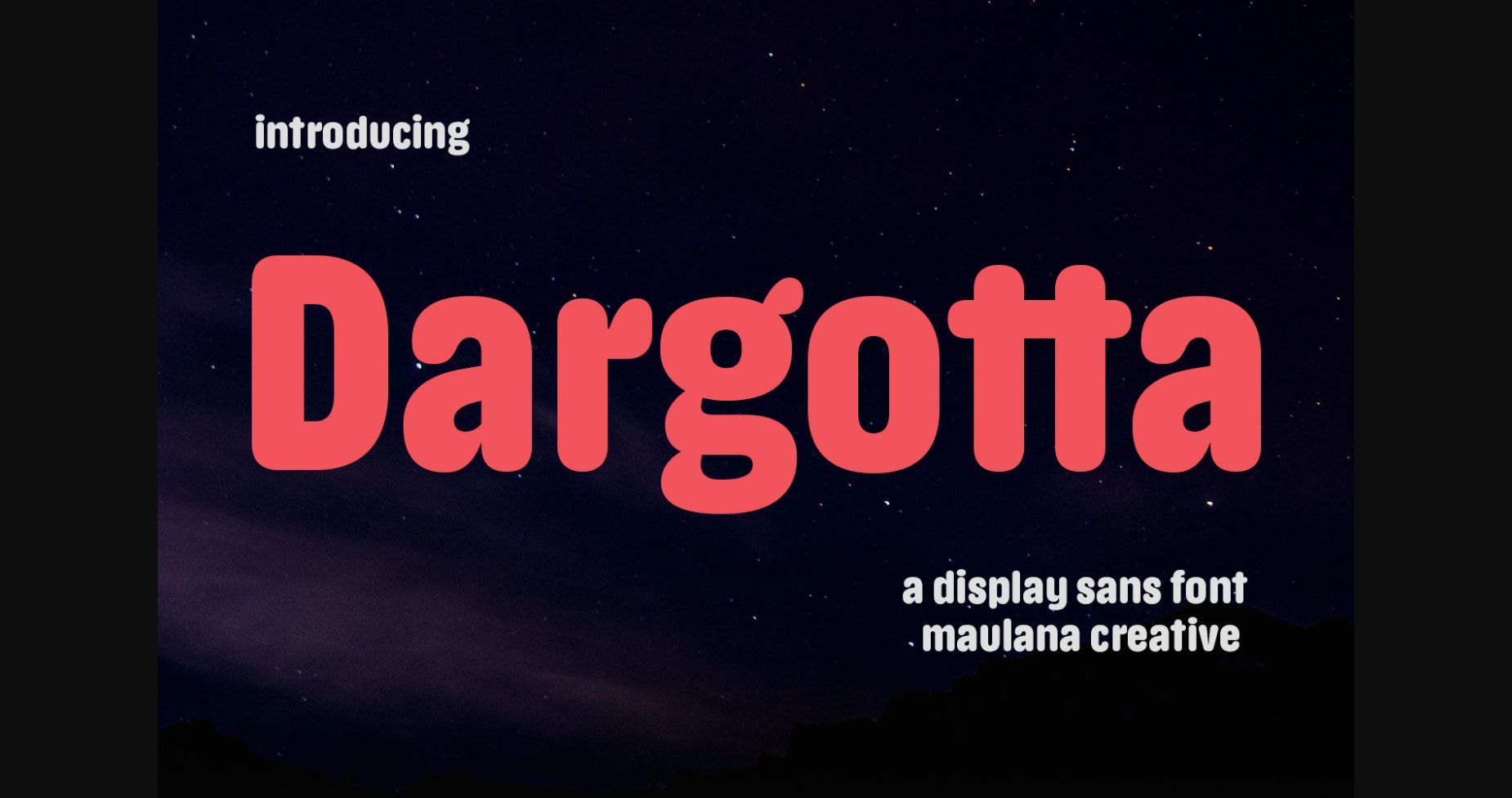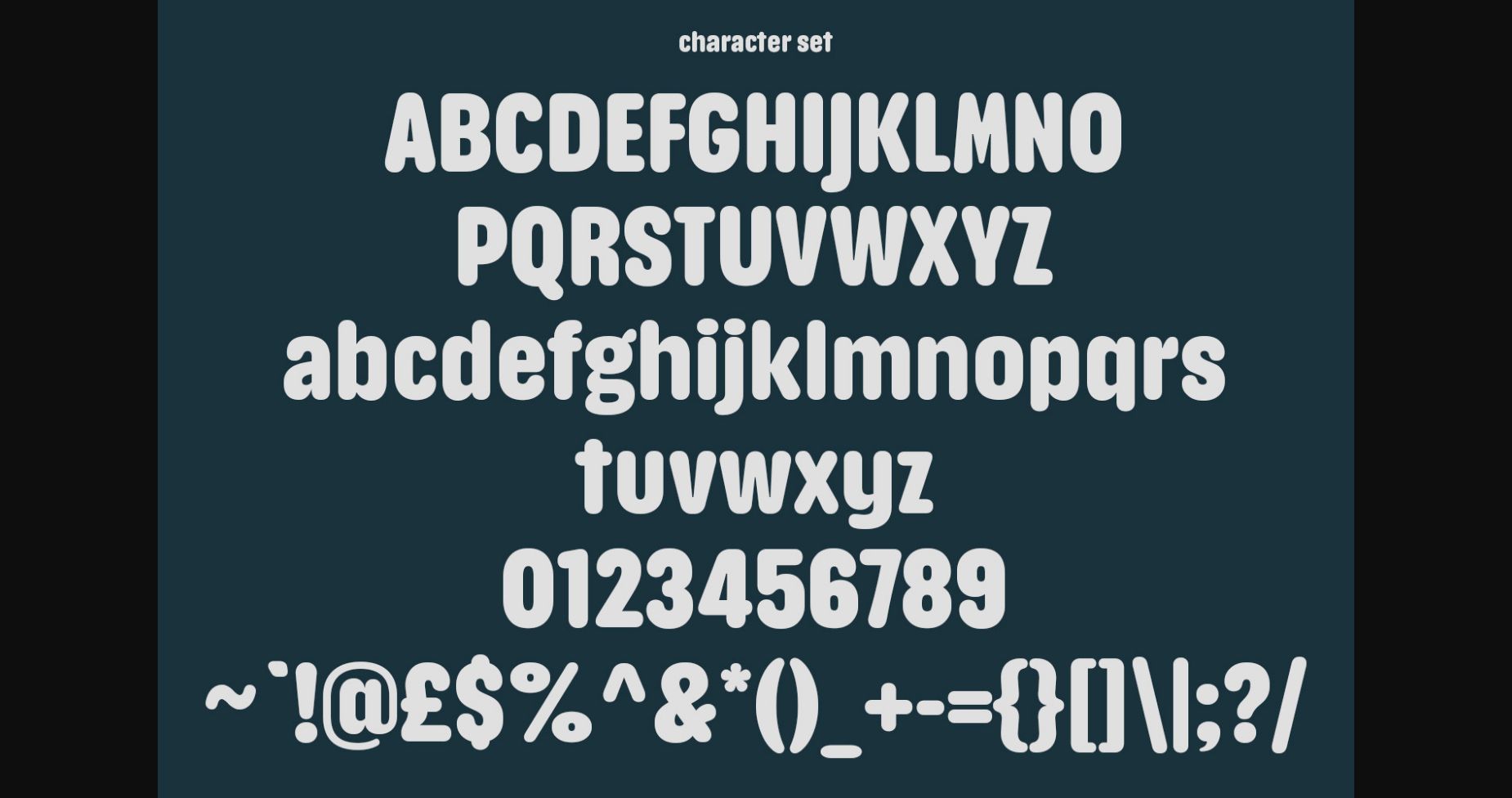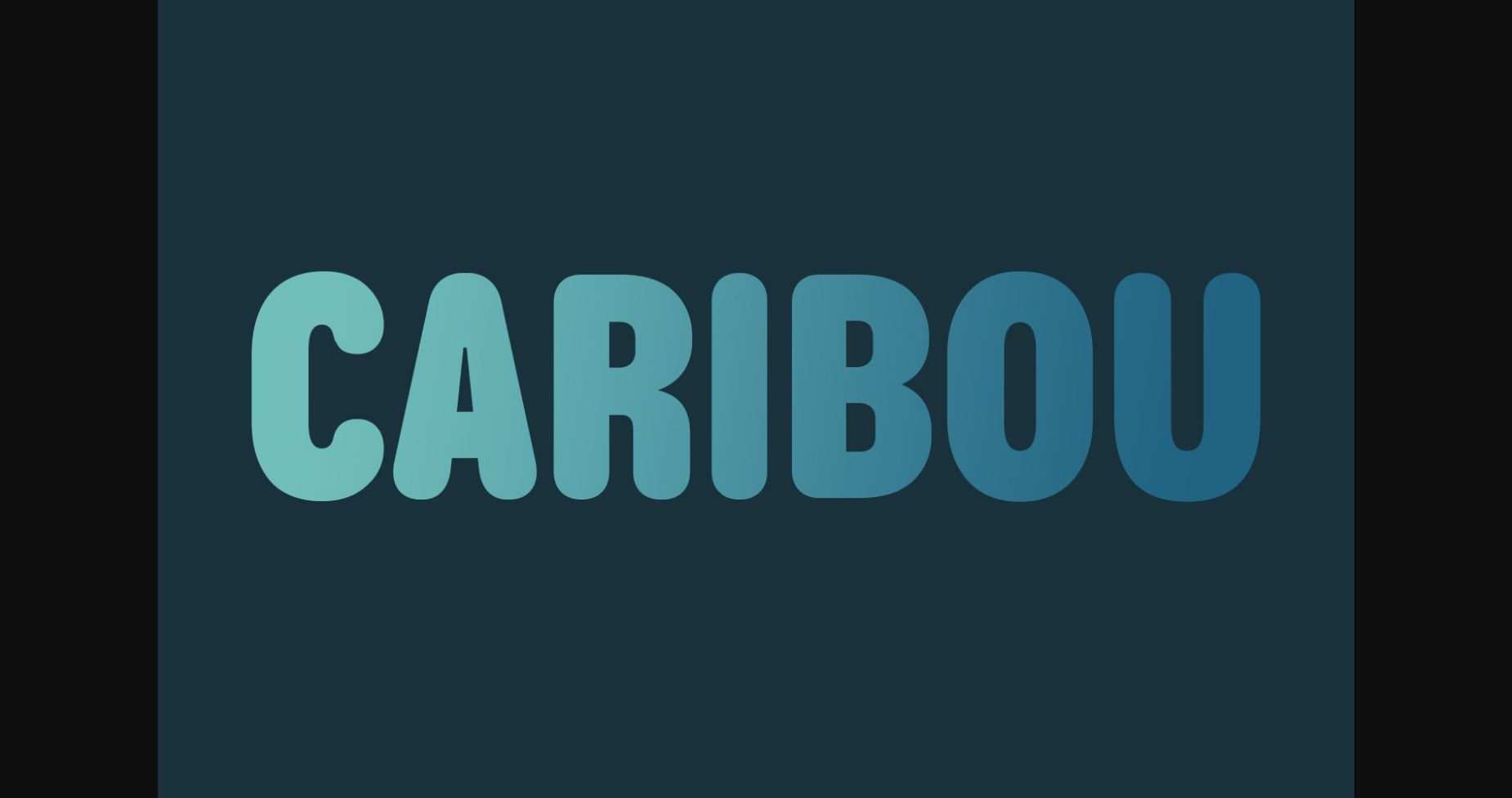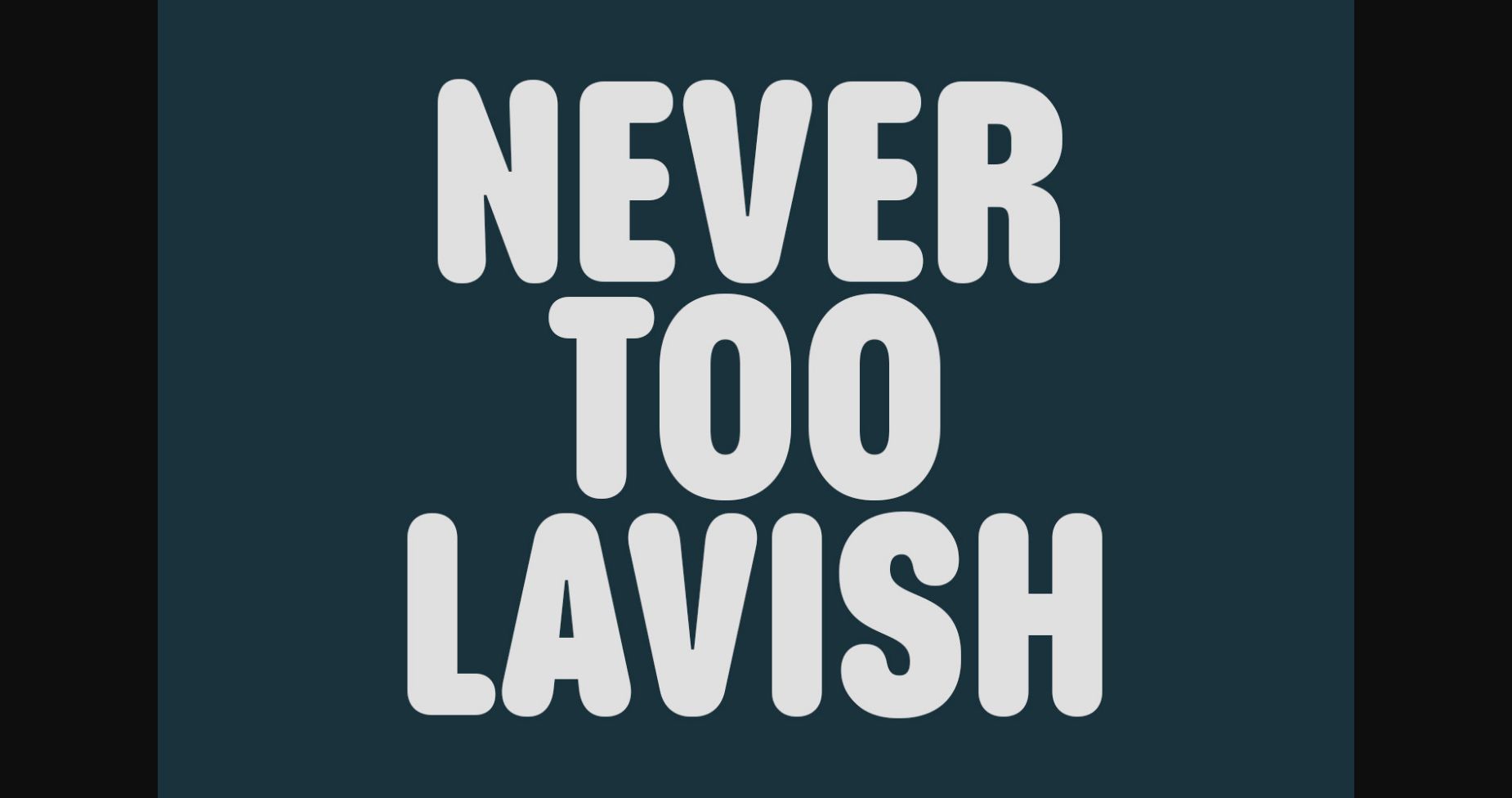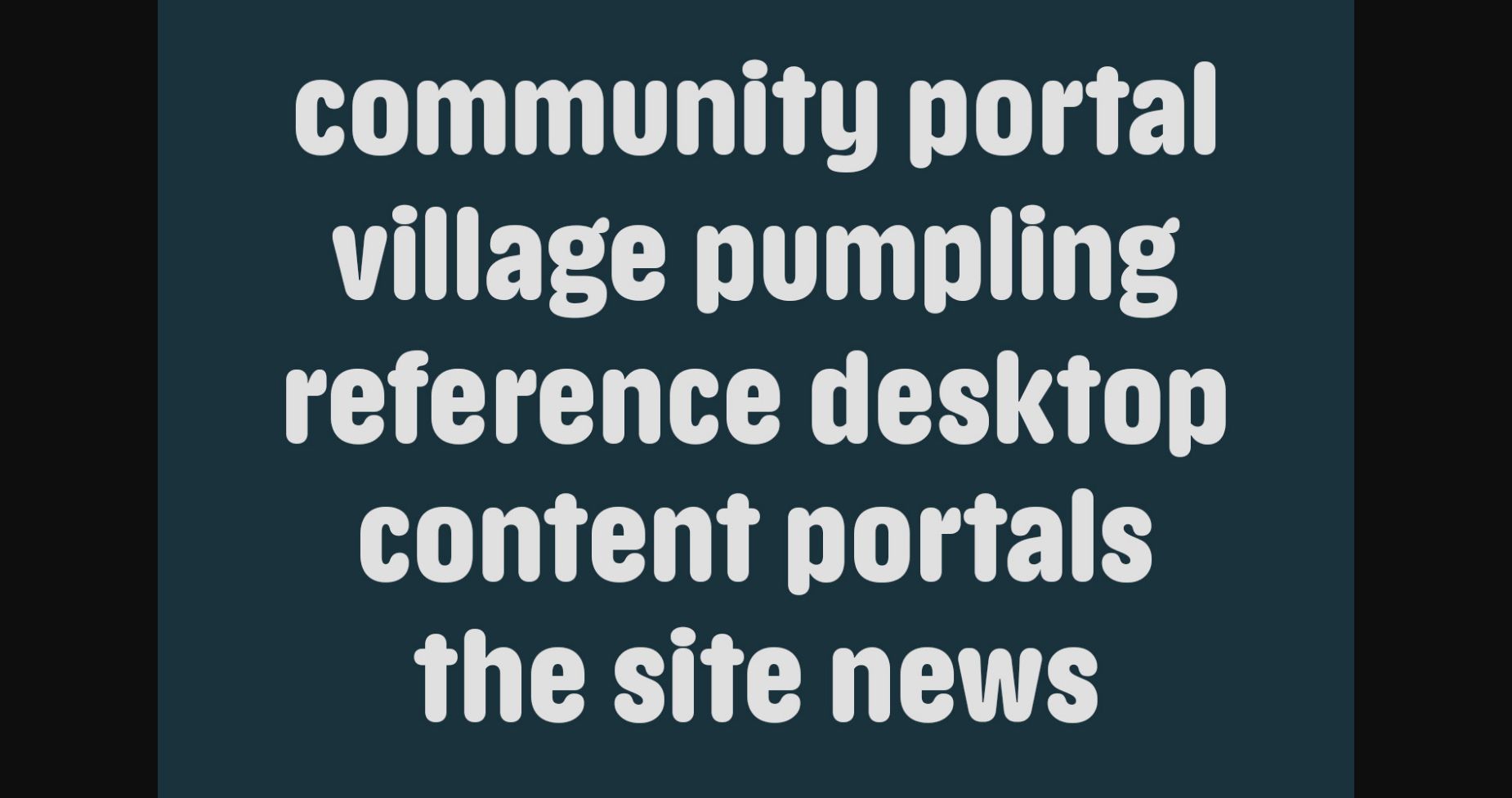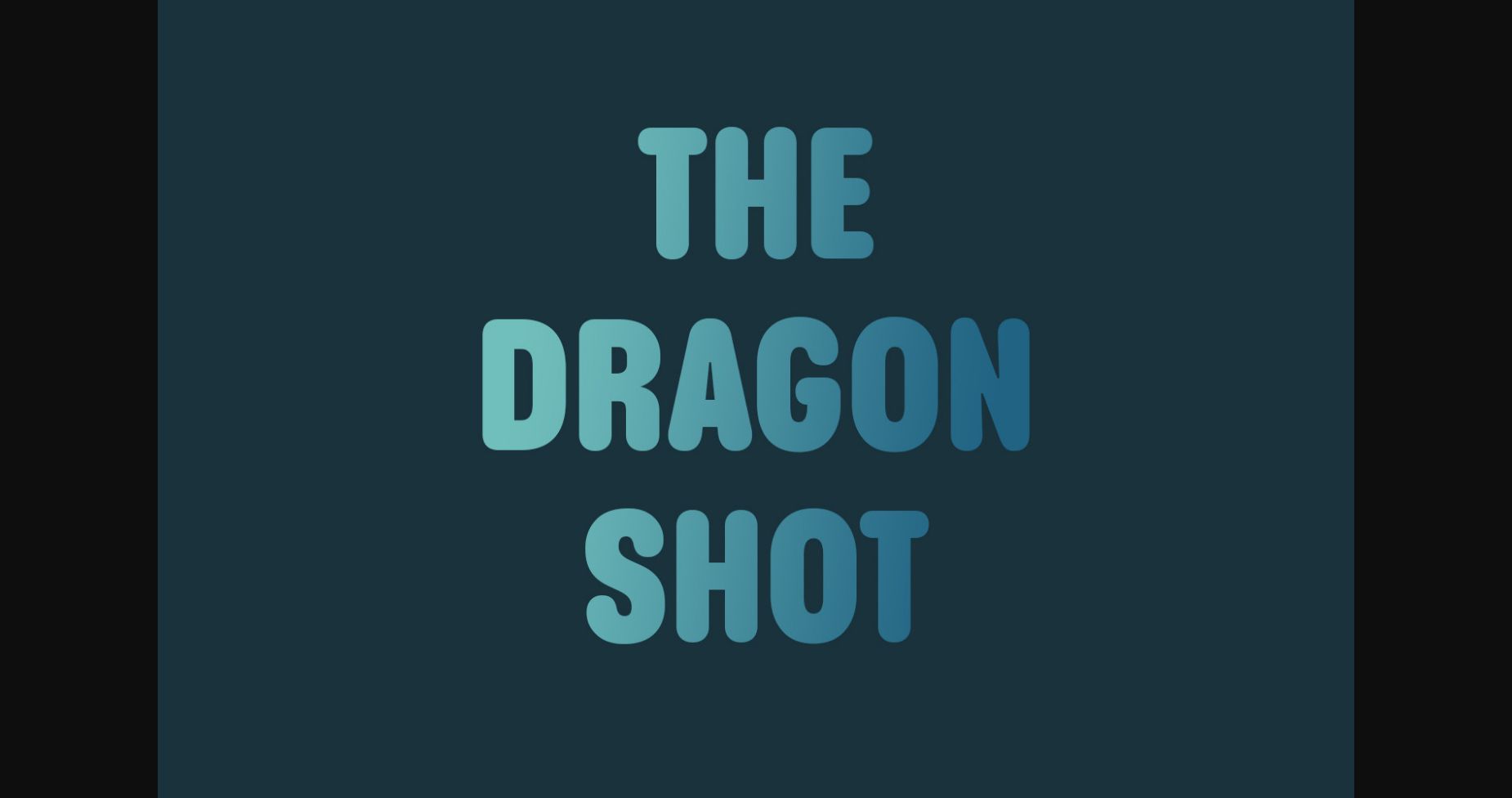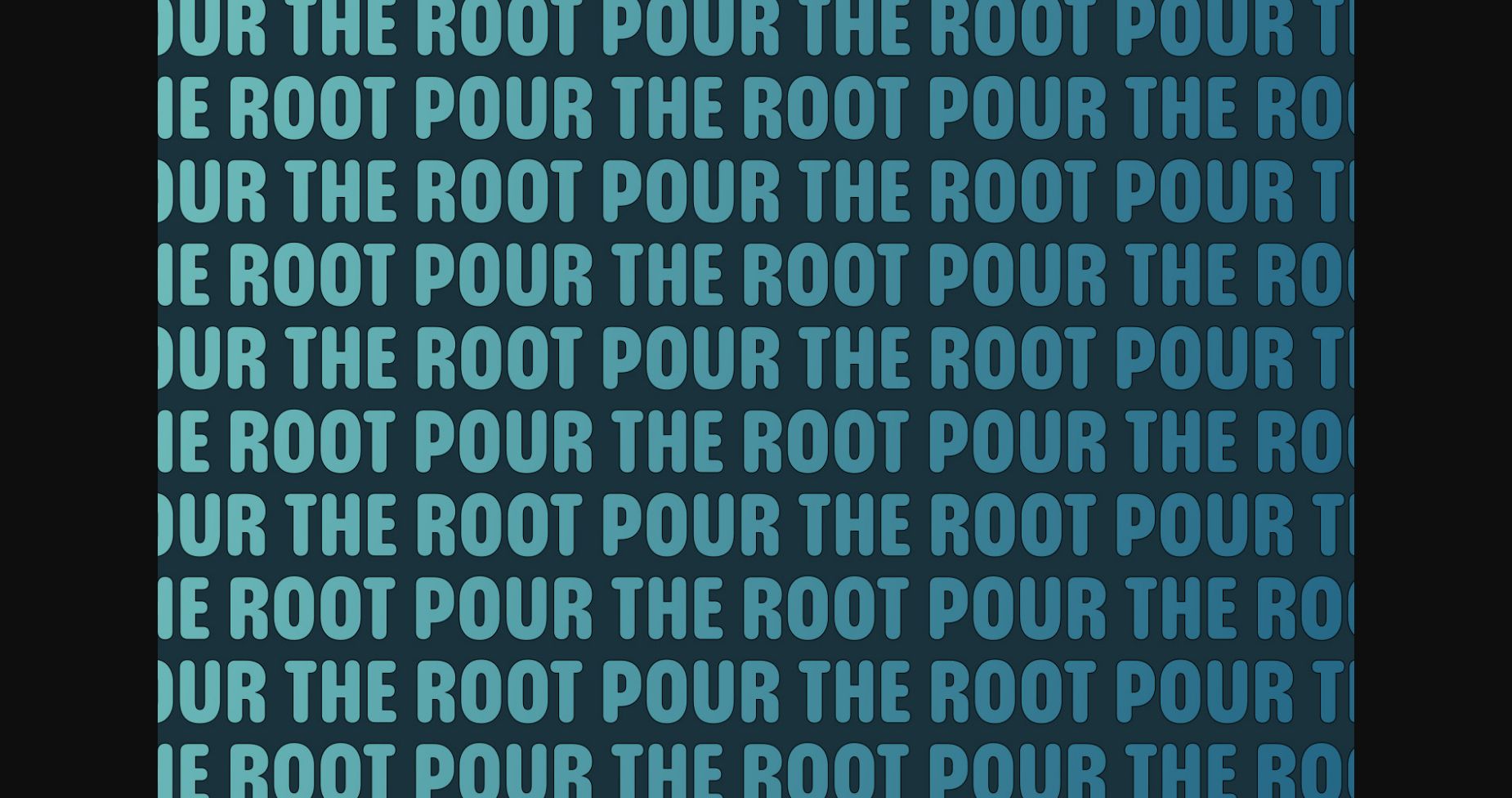
Dargotta Font
About Dargotta Font
Dargotta is a modern and fun sans serif font. Add it confidently to your creative projects and you will love the results!